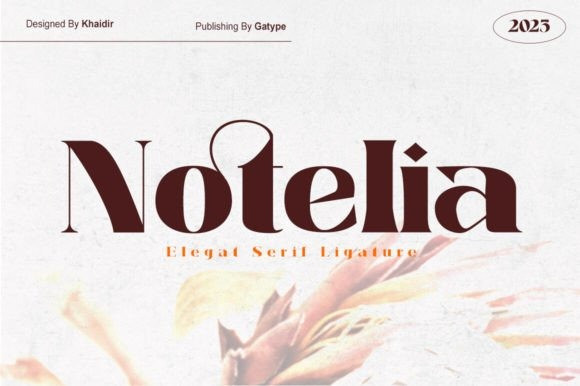
Notelia Font
Notelia Font – The elegant font I work with is creative in mood and perfect in shape, inspired by today’s beautiful serif look. bold, balanced and varied, born for luxury and beauty. includes uppercase letters, numbers, and a wide variety of punctuation marks. Serif font with a modern style. Made for posters, web design, branding, illustrations, badges and many other works.